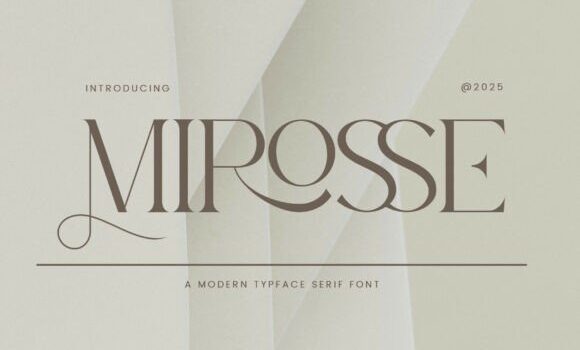
Mirosse Font – Free Download Introduction to Mirosse Font Mirosse – Modern Typface Serif Font is a modern, minimalist serif font. 📸 Preview Gallery 6 images 📌 Product Name Mirosse Font 👤 Author AnnofaType 📂 Category Explore ⬇️ Download Mirosse